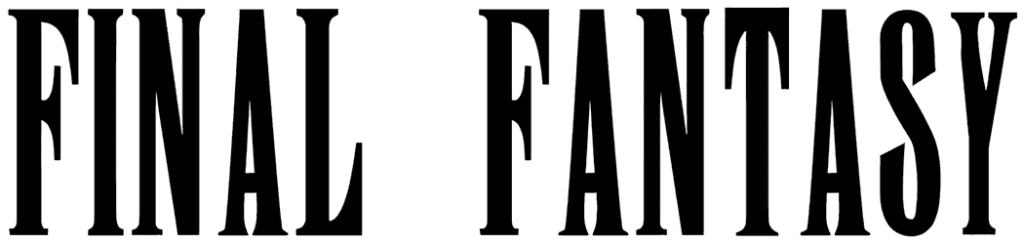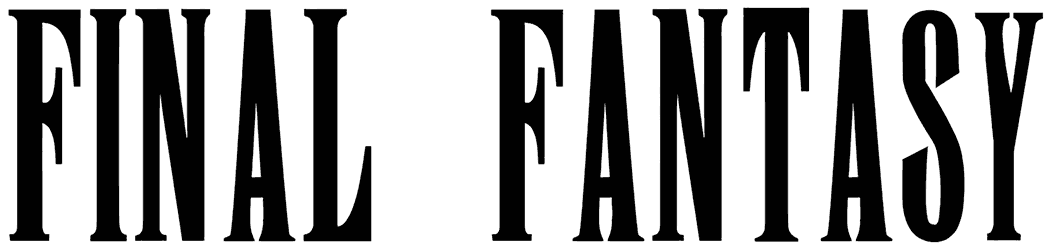
Final Fantasy Font
Designed byJuan Pablo Reyes Altamirano
Step into a world of magic and adventure with the Final Fantasy font — a must-have for fans of the legendary game series! Perfect for themed designs, posters, logos, or fan art, this elegant and nostalgic typeface captures the iconic essence of Final Fantasy.